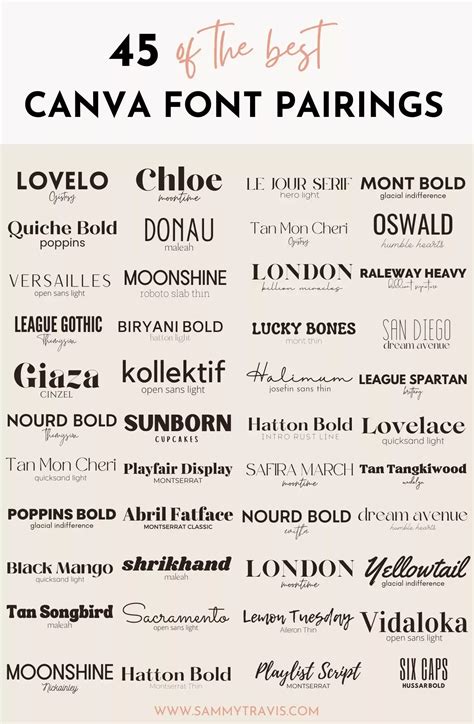
Best Formal Canva Fonts for Professional Designs
Readers, have you ever struggled to find the perfect font for your professional Canva designs? It's a common problem! Finding the right font can make or break your design, making it look either polished and sophisticated or amateurish and unprofessional.
The good news is that Canva offers a wide variety of fonts, including many formal options perfect for presentations, reports, brochures, and other professional documents. I've spent countless hours analyzing these fonts, and I'm here to share my knowledge with you.
Understanding Formal Fonts
Before diving into specific font recommendations, let's define what makes a font "formal." Formal fonts project an air of professionalism, trustworthiness, and authority. They are typically clean, legible, and free from distracting flourishes or embellishments.
Common features of formal fonts include:
- Simple and elegant letterforms
- Good kerning and spacing
- Consistent weight and stroke width
- A lack of overly decorative elements
Top Canva Fonts for Professional Designs
Serif Fonts
Serif fonts have small decorative strokes called serifs at the ends of each letter. They are often associated with tradition, authority, and sophistication.
Here are some of the best serif fonts in Canva for professional designs:
- **Times New Roman:** This classic font is a safe choice for formal documents, but it can feel dated.
- **Garamond:** A timeless serif with a slightly more elegant feel than Times New Roman.
- **Georgia:** This serif font is known for its excellent readability at different sizes.
- **Playfair Display:** This font adds a touch of sophistication with its bold, elegant strokes.
- **Crimson Text:** A beautiful, contemporary serif font with a warm, inviting feel.
Sans-Serif Fonts
Sans-serif fonts lack the serifs found in serif fonts. They tend to be modern, clean, and straightforward.
Here are some of the best sans-serif fonts in Canva for professional designs:
- **Arial:** This font is very popular for business documents and presentations.
- **Helvetica:** This font is often seen as a symbol of modernity and minimalism.
- **Roboto:** A clean and readable sans-serif font with a modern, minimalist feel.
- **Open Sans:** This font is very versatile and easy to read, making it suitable for different types of professional designs.
- **Lato:** This font is popular for its clean lines and modern feel.
Script Fonts
Script fonts mimic handwriting, adding a personal touch to designs. While they are not usually the best choice for formal text blocks, they can be effective for headlines or accents.
Here are some script fonts in Canva that can work well in a formal setting:
- **Allura:** This elegant script font is perfect for invitations, wedding stationery, and other special occasions.
- **Sacramento:** With its flowing lines and slight vintage feel, it's a good choice for adding a touch of personality to branding or marketing materials.
- **Dancing Script:** This whimsical yet elegant script is a great option for adding a playful touch to formal designs.
Choosing the Right Font for Your Design
When choosing a font for your professional Canva design, consider the following factors:
- **Purpose of the design:** What is the design trying to communicate?
- **Target audience:** Who are you trying to reach with this design?
- **Brand identity:** Does the font align with your brand's personality and style?
- **Readability:** Will the font be easy to read at different sizes?
- **Visual hierarchy:** How will the font help you guide the viewer's eye through the design?
Think about the overall message you are trying to convey, and select a font that supports that message. For instance, a traditional serif font might be appropriate for a legal document, while a modern sans-serif font could be better suited for a website design.
Best Formal Canva Fonts by Category
Best Formal Fonts for Presentations
Presentations demand clear, concise, and engaging visuals. The font choice plays a crucial role in achieving these goals. Here are some of the best formal fonts for Canva presentations:
- **Roboto:** Clean, readable, and modern, making it suitable for large text blocks and headlines.
- **Playfair Display:** This elegant serif font adds a touch of sophistication to presentation titles.
- **Open Sans:** Versatile and easy to read, it works well for both body text and headers.
Best Formal Fonts for Reports
Reports require an air of professionalism, authority, and trustworthiness. The font choice should reflect these qualities.
Here are some of the best formal fonts for Canva reports:
- **Times New Roman:** A classic choice for reports, but it can feel dated.
- **Garamond:** This serif font offers a timeless, elegant look.